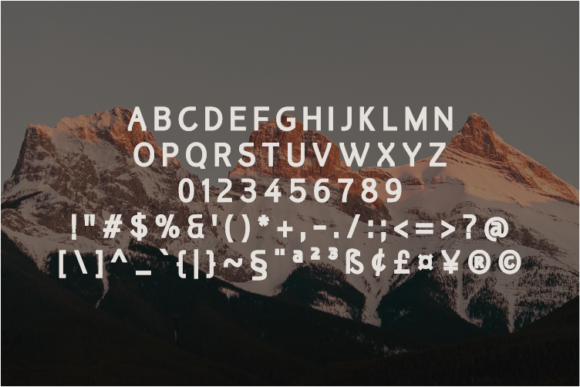
Introducing Chynzone Font: The Ultimate Bold Sans Serif for Designers and Crafters
In the world of typography, a good font can make all the difference in the success of a design project. For designers and crafters, finding the perfect font that combines style, readability, and versatility can be a daunting task. However, if you’re looking for a bold sans serif font that ticks all the right boxes, look no further than Chynzone Font.
What is Chynzone Font?
Chynzone is a bold sans serif font, carefully handcrafted to become a true favorite among designers and crafters. Its unique blend of casual charm and sophistication makes it an excellent choice for a wide range of design projects. Whether you’re working on a logo, brochure, or website, Chynzone Font is sure to make a lasting impression.
The Characteristics of Chynzone Font
So, what sets Chynzone Font apart from other fonts? Here are some of its key characteristics:
- Bold and Eye-catching: Chynzone Font is a bold sans serif font that grabs attention and demands to be noticed.
- Casual Charm: Despite its boldness, Chynzone Font has a casual charm that makes it appear wonderfully down-to-earth and approachable.
- Readability: Chynzone Font is designed to be highly readable, even at smaller font sizes, making it perfect for body text and captions.
- Versatility: Chynzone Font is incredibly versatile and can be used in a wide range of design contexts, from busy backgrounds to standalone headlines.
Why Choose Chynzone Font?
With so many fonts available, why should you choose Chynzone Font for your design project? Here are just a few reasons:
- Unique Style: Chynzone Font has a unique style that sets it apart from other bold sans serif fonts.
- Easy to Read: Chynzone Font is designed to be easy to read, even for extended periods of time.
- Flexible: Chynzone Font can be used in a wide range of design contexts, from digital to print.
- High-quality: Chynzone Font is a high-quality font that is carefully crafted to ensure that it looks great in any design project.
How to Use Chynzone Font in Your Design Project
Now that you know more about Chynzone Font, here are some tips on how to use it in your design project:
- Use it as a Headline: Chynzone Font makes an excellent headline font, grabbing attention and drawing the reader in.
- Pair it with Other Fonts: Chynzone Font pairs well with other fonts, making it easy to create a cohesive design.
- Use it on Busy Backgrounds: Chynzone Font is designed to stand out, even on busy backgrounds.
- Experiment with Colors: Chynzone Font looks great in a wide range of colors, so don’t be afraid to experiment and find the perfect color for your design.
In conclusion, Chynzone Font is an excellent choice for designers and crafters looking for a bold sans serif font that combines style, readability, and versatility. With its unique blend of casual charm and sophistication, Chynzone Font is sure to become a true favorite in your design toolkit. So why not give it a try today and see how it can elevate your design project to the next level?